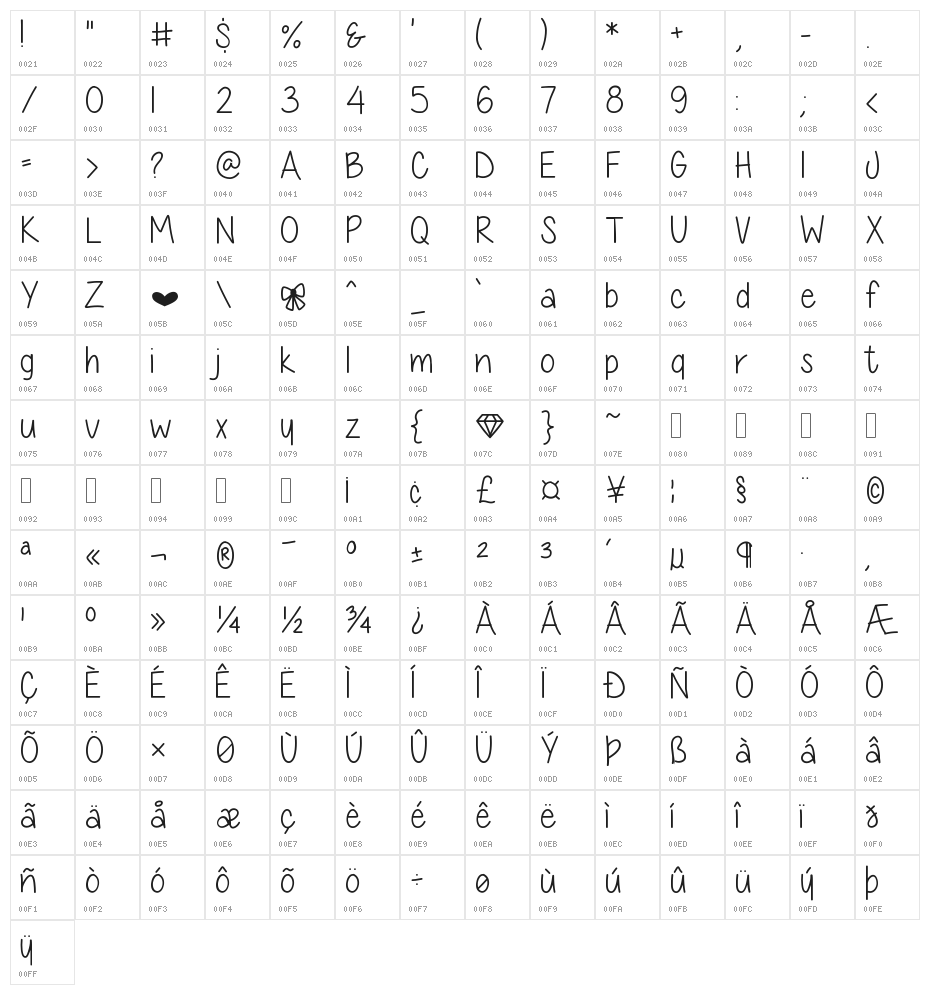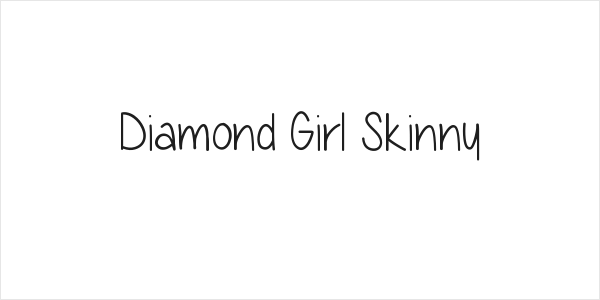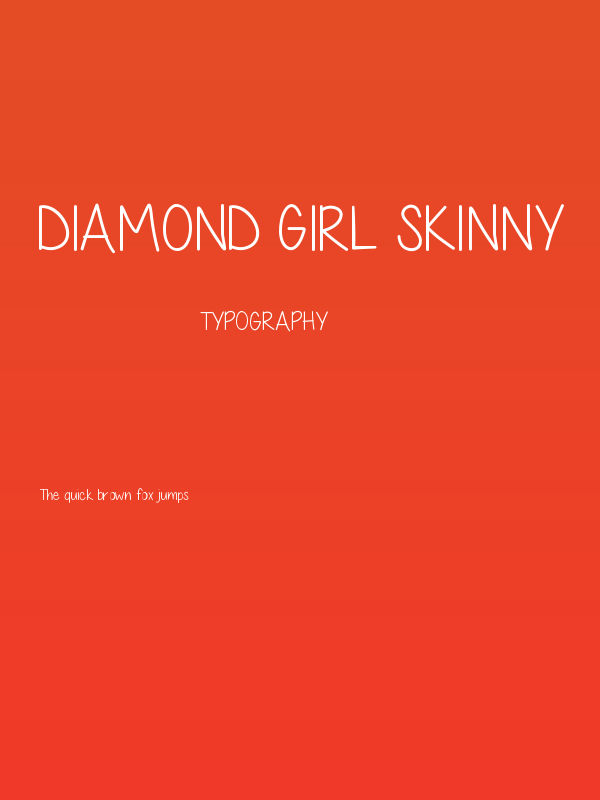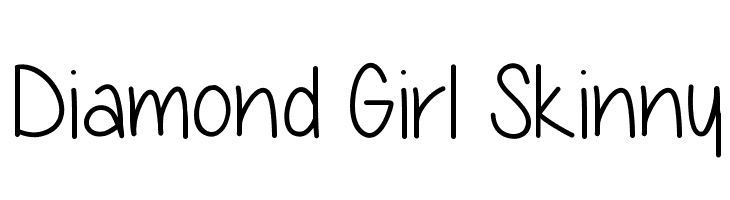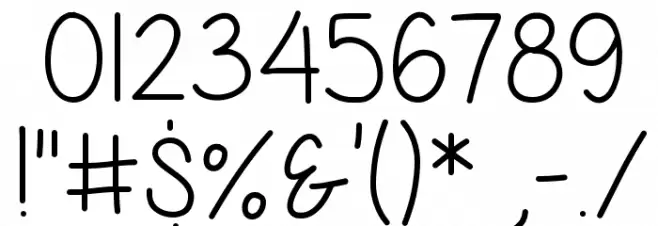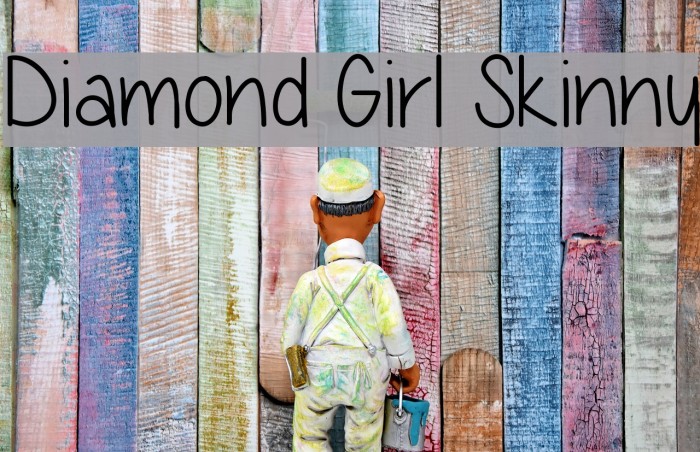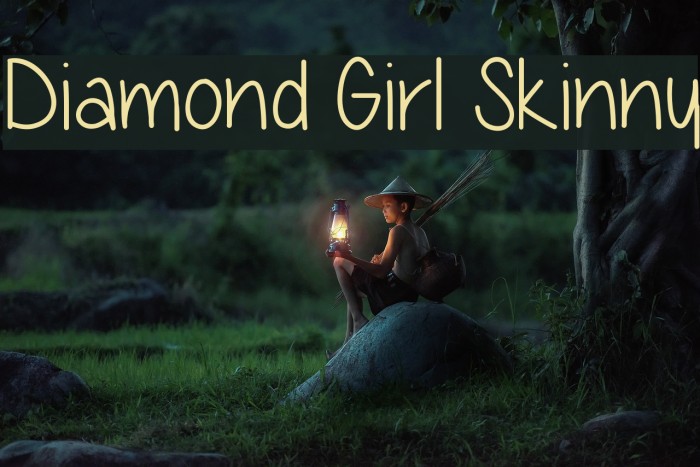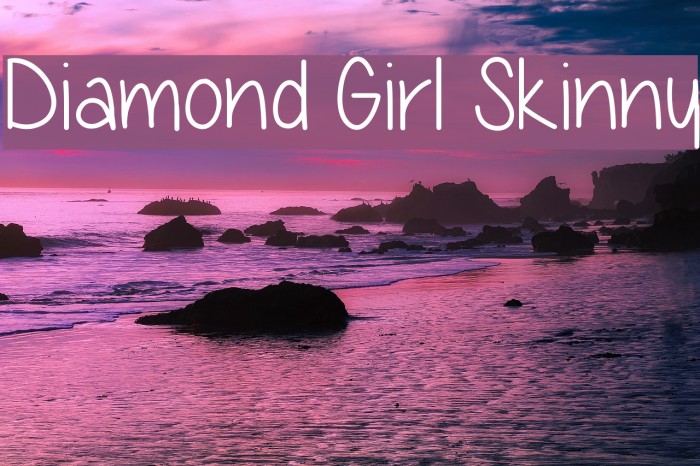
Diamond Girl Skinny Font
Diamond Girl Skinny Description
This font features a playful and casual handwritten style, characterized by its rounded and slightly irregular letterforms. The uppercase and lowercase letters maintain a consistent flow, giving it an approachable and friendly appearance. The numerals and special characters complement the alphabet with similar curves and strokes, enhancing the cohesive look. Its simplicity and charm make it suitable for informal and creative projects, where a personal touch is desired.
| Overall Style | Casual |
| Use Case | Headlines, Informal text, Creative projects |
| Proposed Projects | Ideal for greeting cards, children's books, personal blogs, and informal branding. |